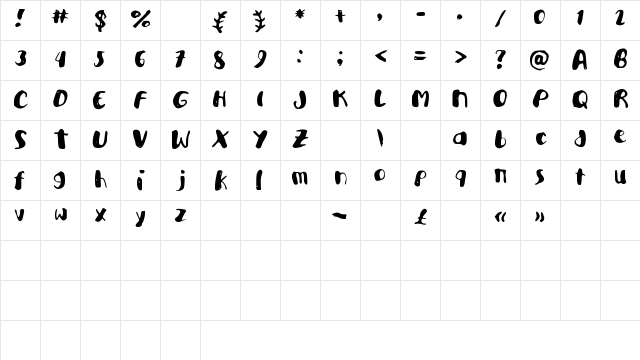
AcademyKiller Regular Free Font
AcademyKiller Regular
Design Context for AcademyKiller
AcademyKiller is a composed and adaptable typeface that performs quietly and consistently across a wide range of design contexts.
Pro Tip: Use AcademyKiller in both headline and body roles to test its range before committing to a single application.